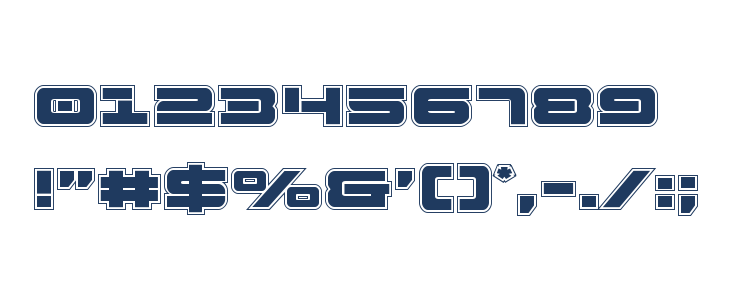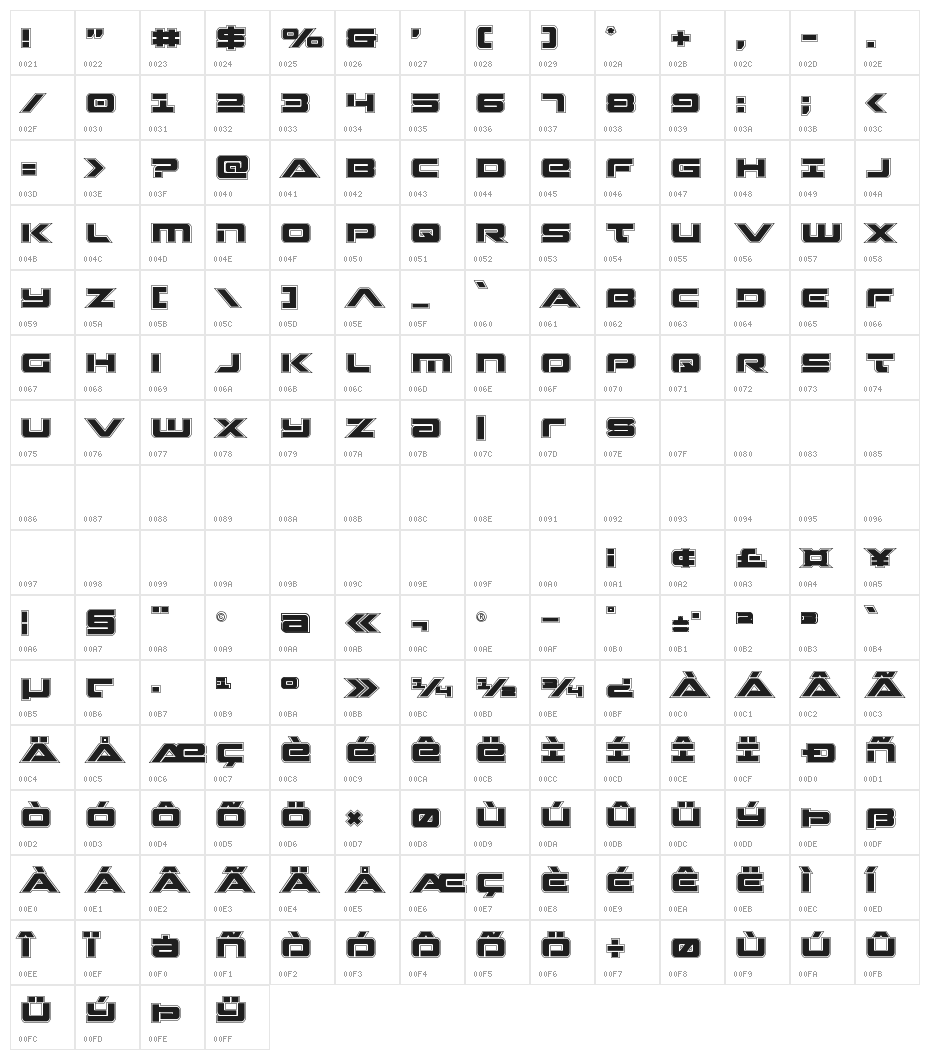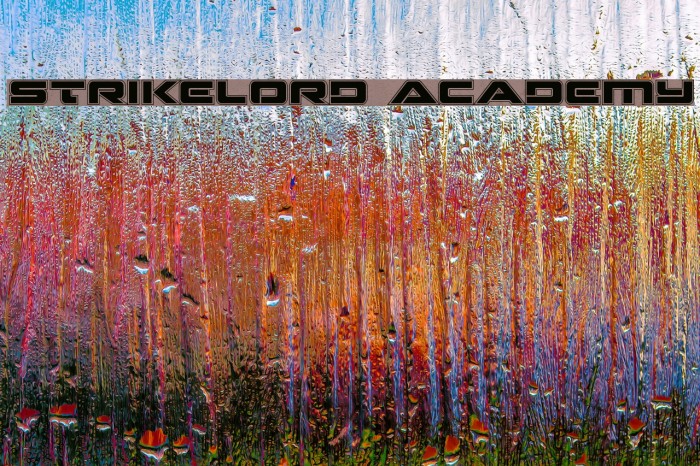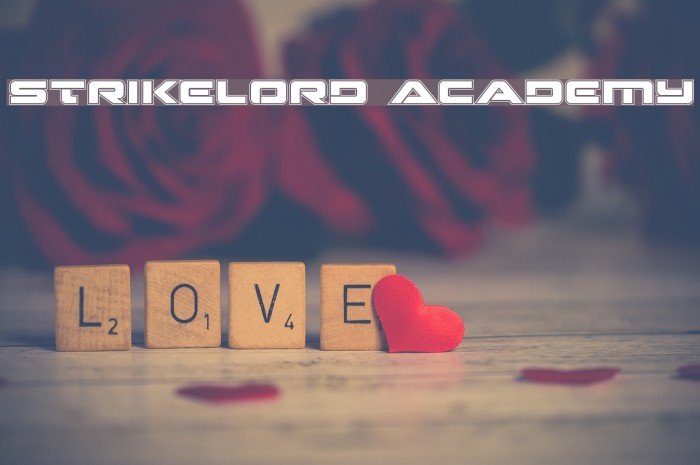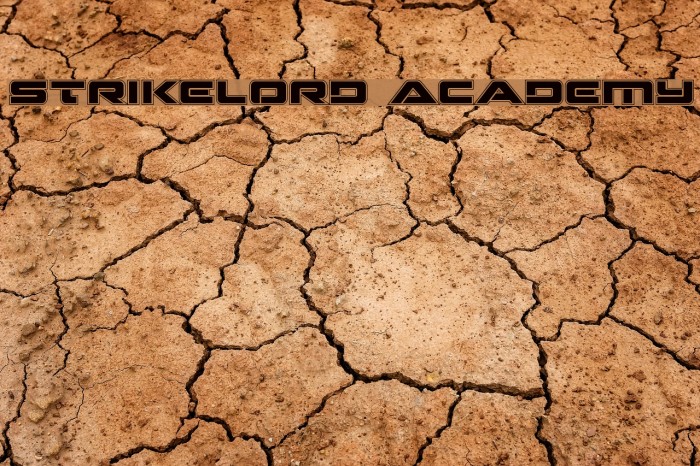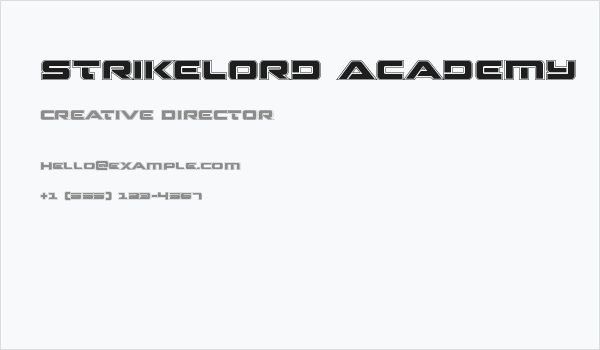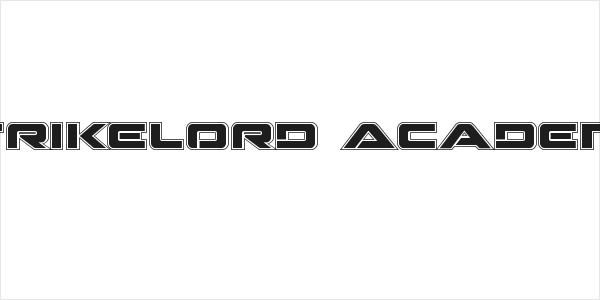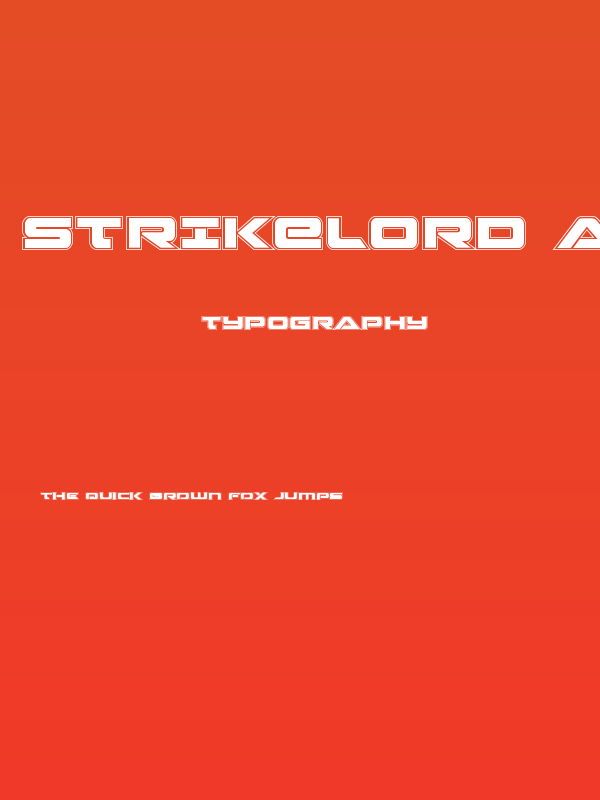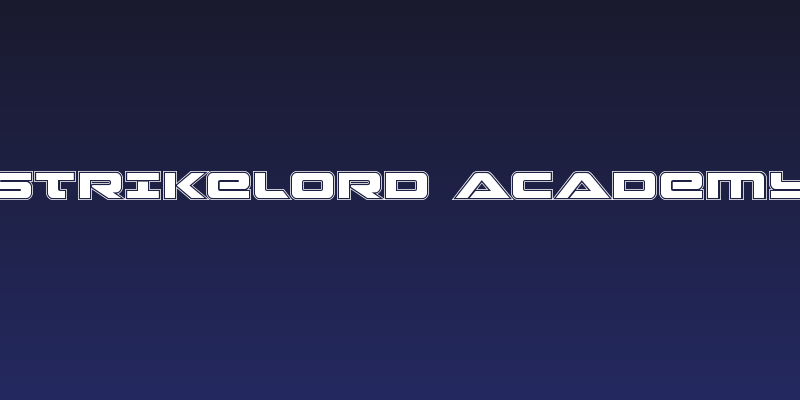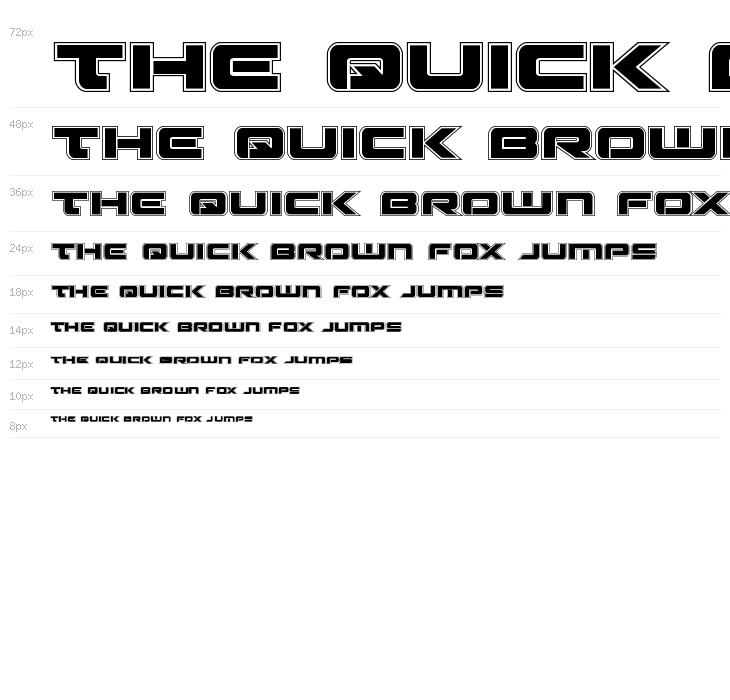
Strikelord Academy Font
Strikelord Academy Description
This font features a bold, futuristic design with a strong geometric structure. The characters are outlined with a thick border, giving them a three-dimensional effect. The angular and sharp edges contribute to a modern and dynamic appearance, making it stand out in any design. The uppercase and lowercase letters maintain a consistent style, while the numbers and special characters complement the overall aesthetic. The font's unique style is suitable for projects that require a bold and impactful visual statement.
| Proposed Projects | Ideal for sci-fi themed posters, video game titles, technology branding, and modern advertising campaigns. |